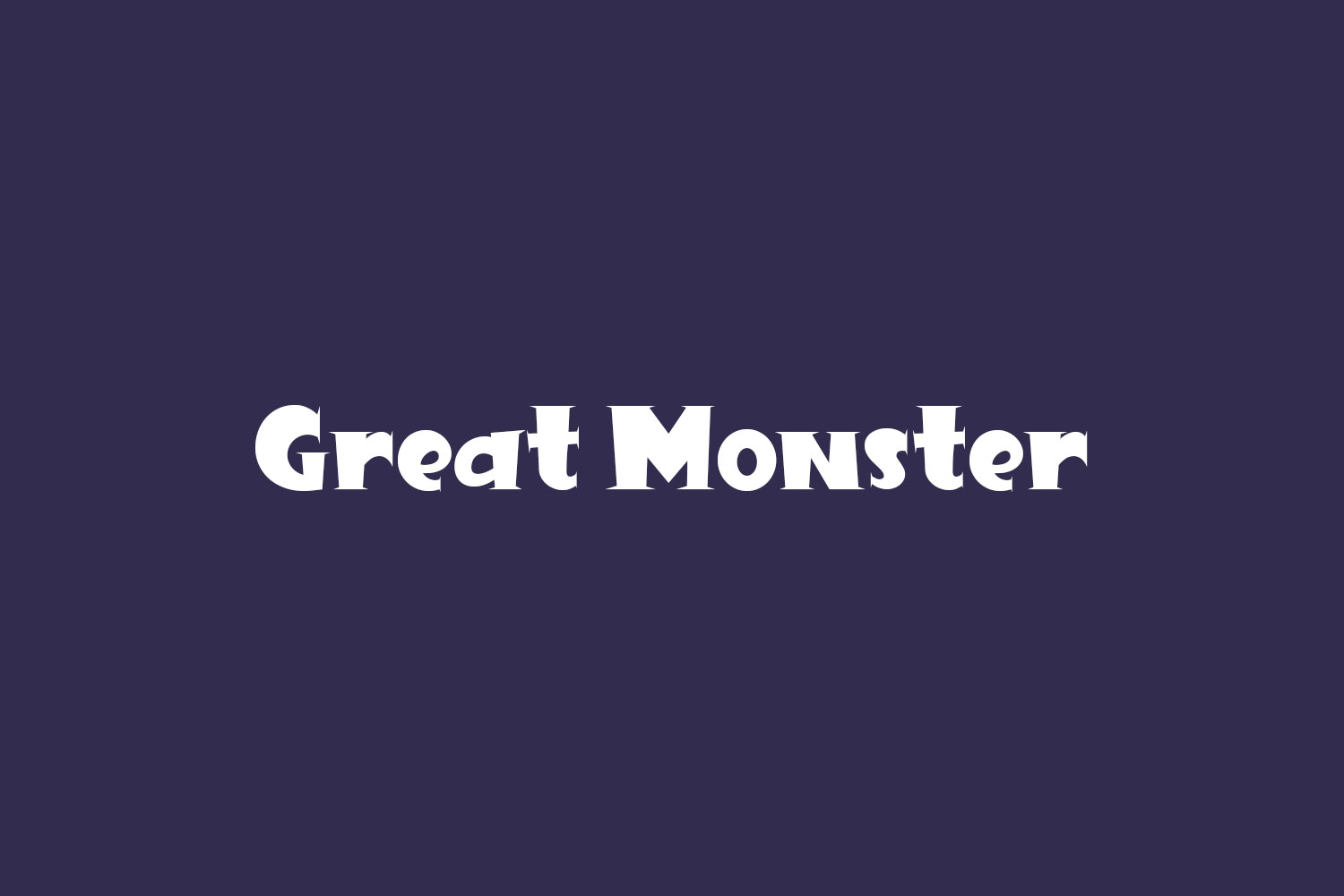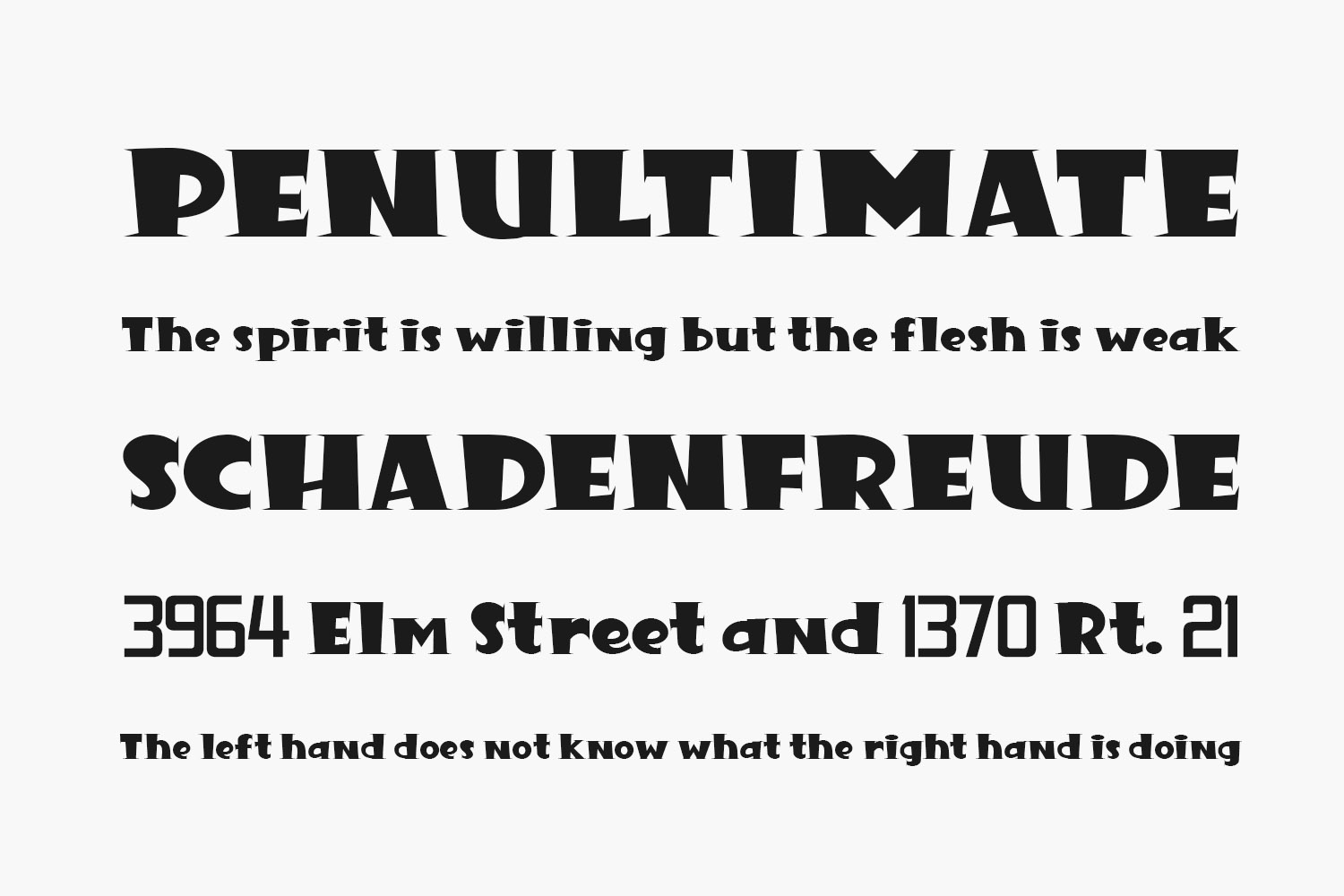
Great Monster Free Font is a cool, bold, and funky display font. Add it to each of your Halloween designs and notice how it instantly comes to life. The only limit is your imagination. Great Monster Free Font was designed by YonType Studio is a demo and free for personal use only. Please purchase the full version for commercial use.